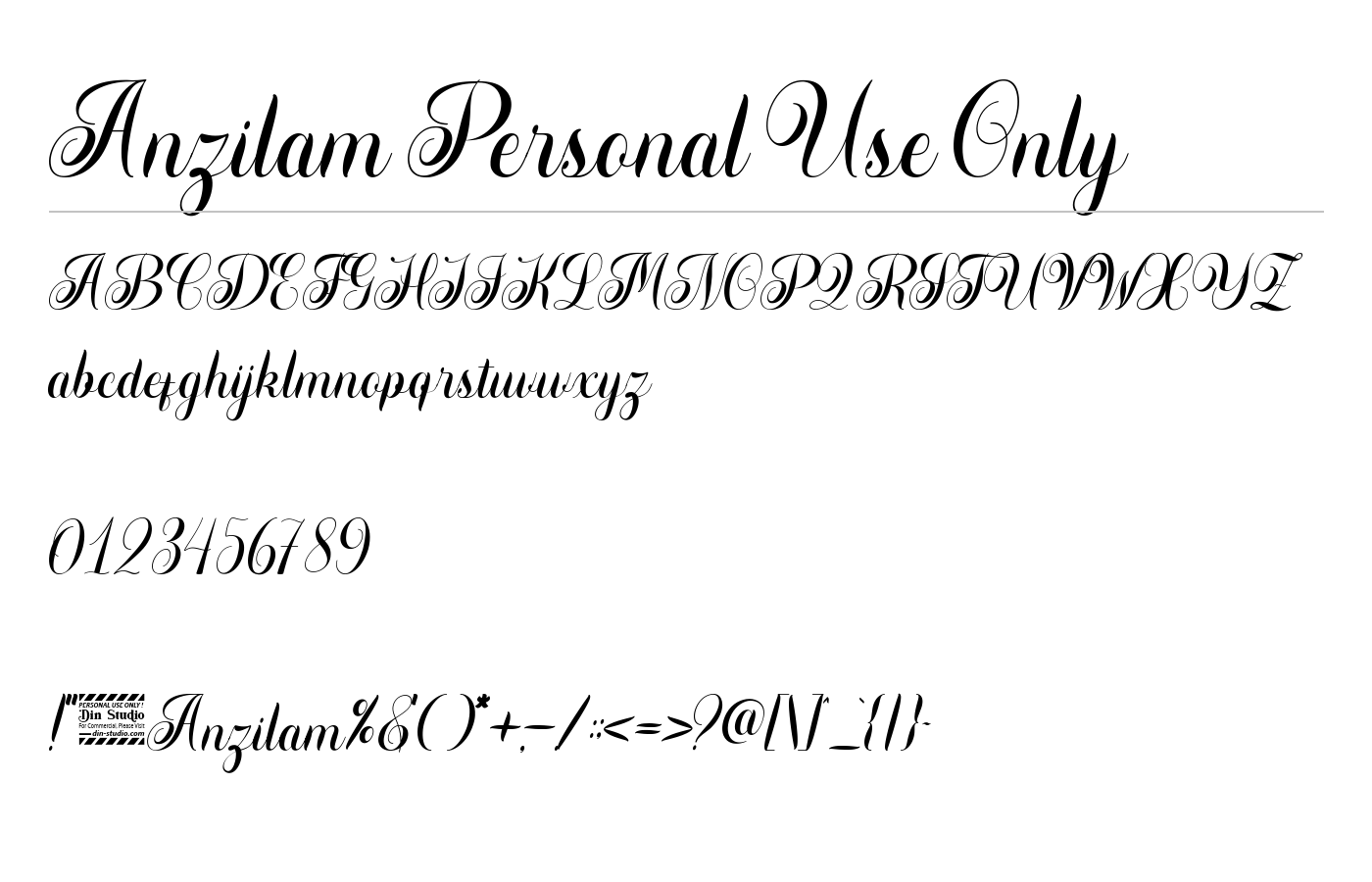
Anzilam is an elegant script font characterized by its graceful, flowing letterforms with high contrast between thick and thin strokes. Featuring delicate swashes and refined curves, it conveys a sophisticated, classic feel that works beautifully for invitations, branding, and decorative headlines where a touch of luxury and femininity is desired. Its refined style suits projects that seek to communicate elegance and charm.
Anzilam Personal Use Only Font
About Anzilam Personal Use Only Font